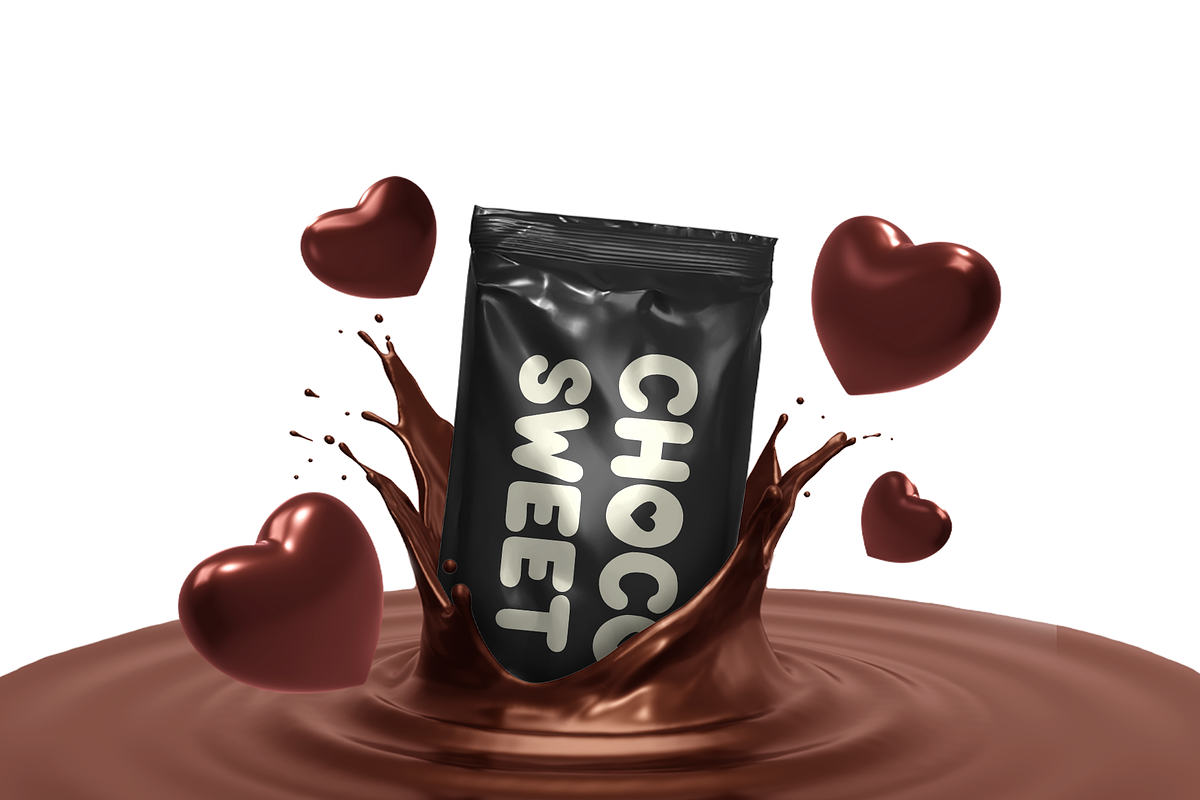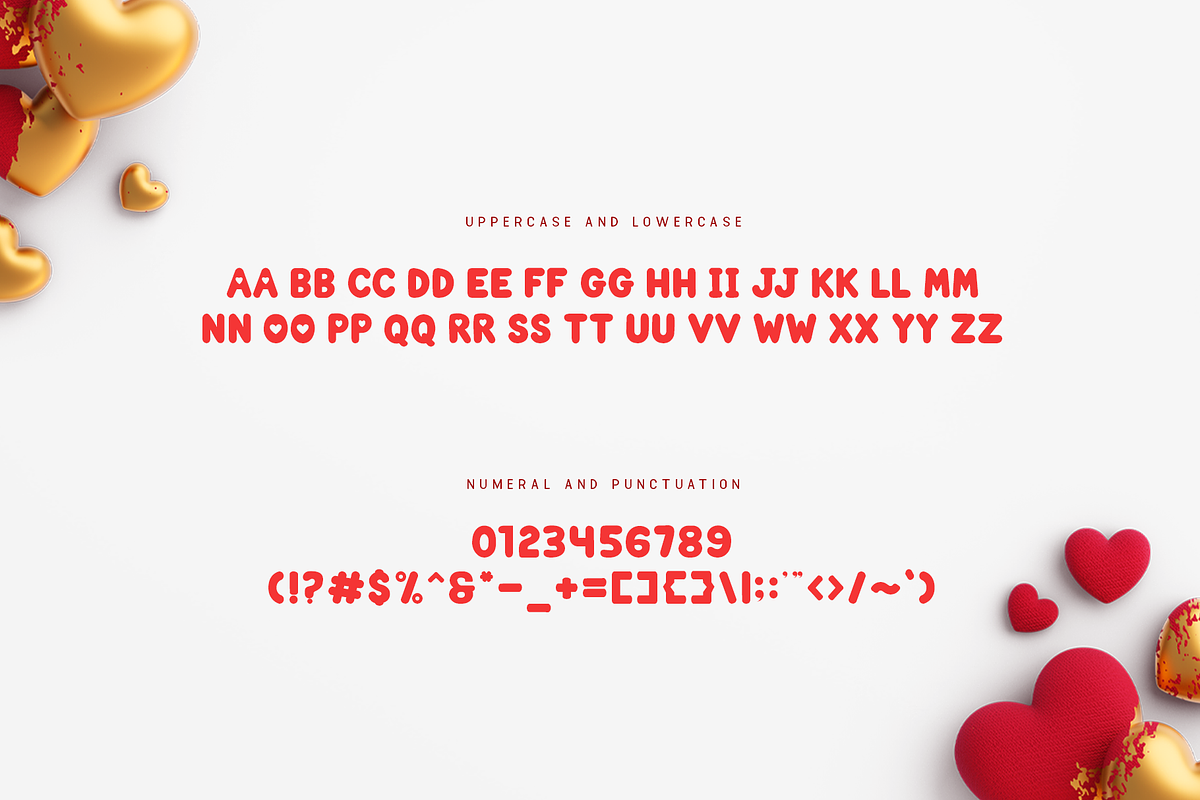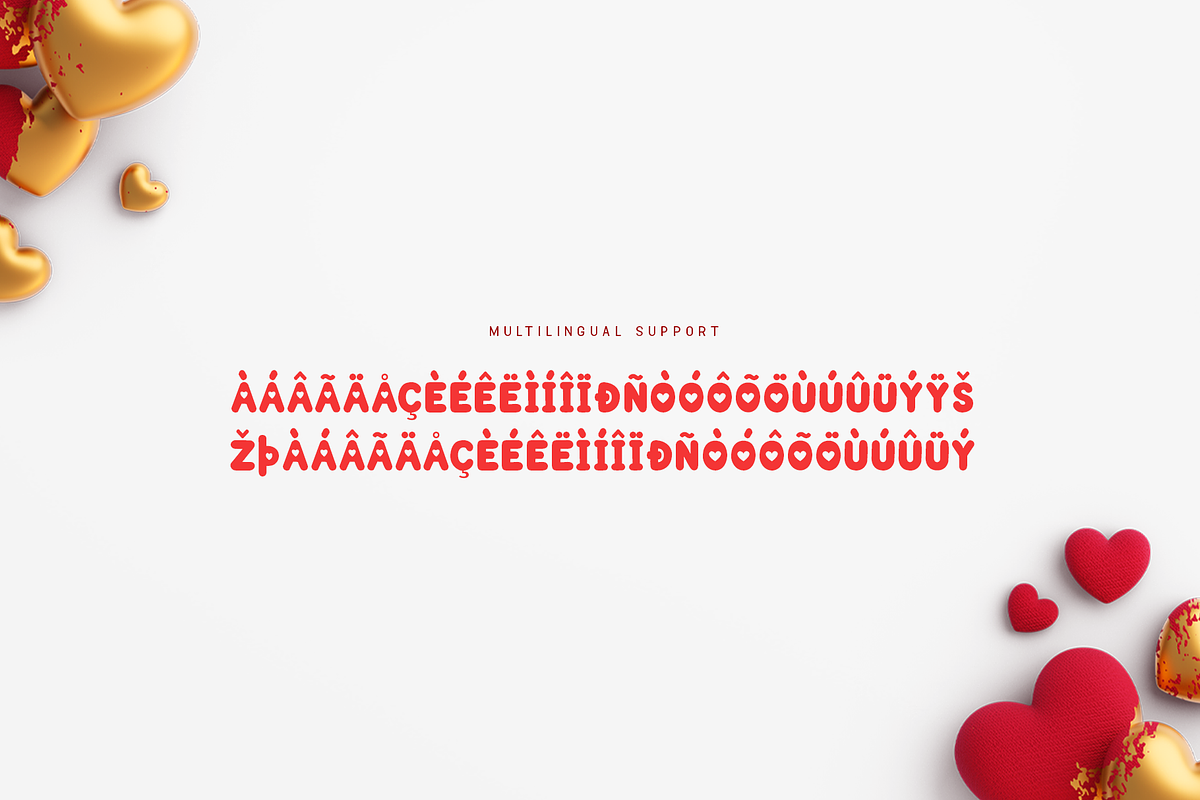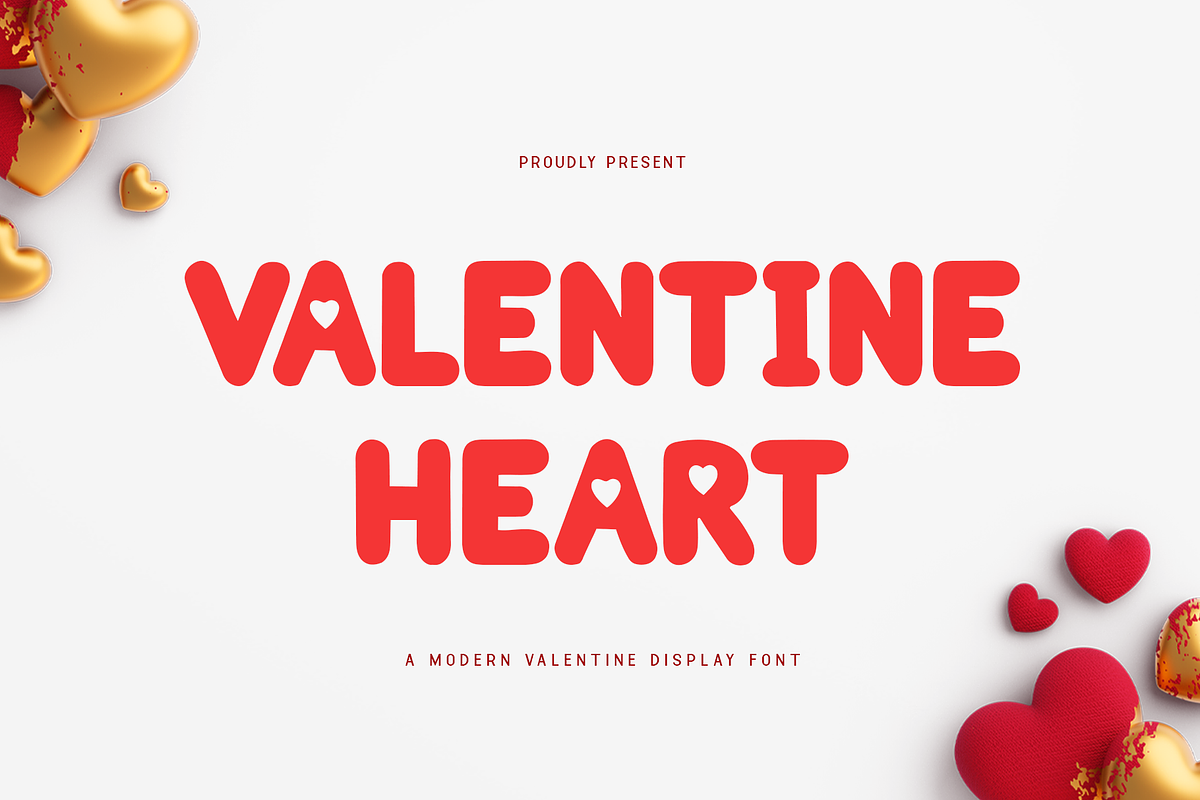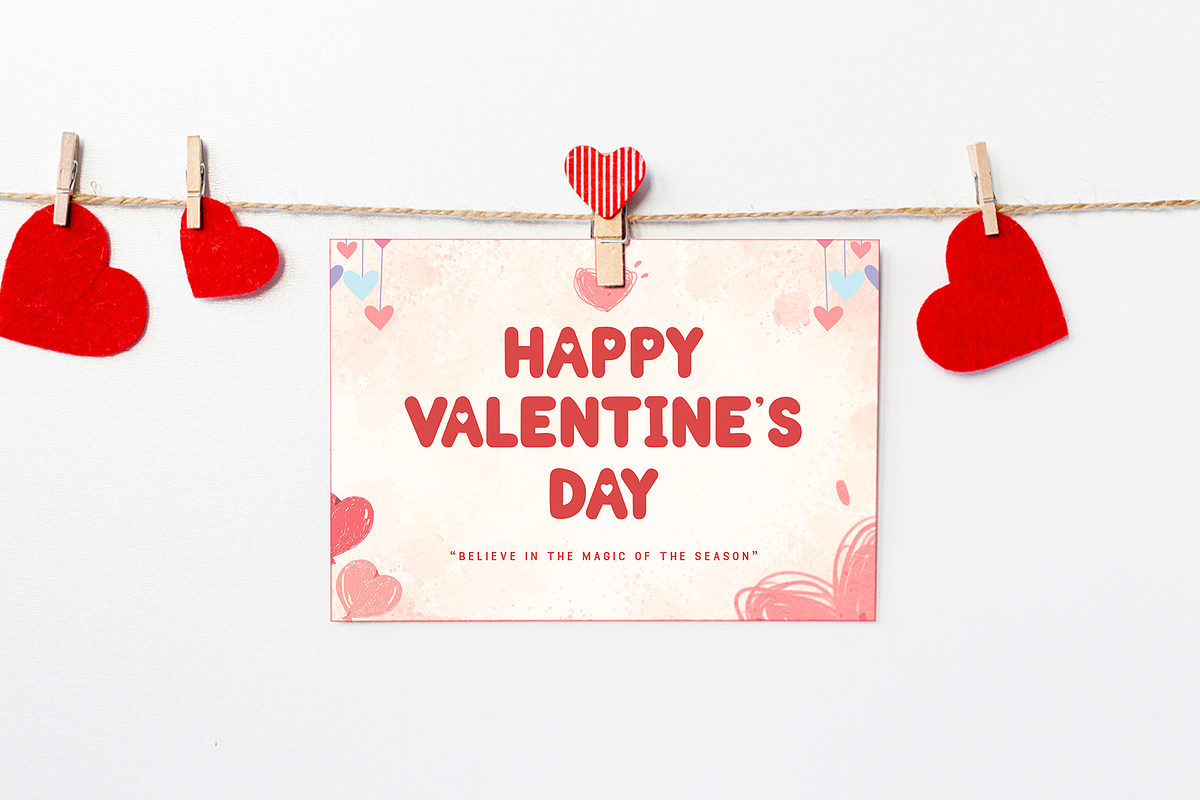
Valentine Heart - Modern Valentine
Valentine Heart - A Modern Valentine Display Font
Celebrate the season of love with Valentine Heart, a modern display font designed to capture the warmth and charm of Valentine’s Day. Featuring playful curves and heart-shaped accents, this typeface adds a romantic touch to any project.
Perfect for crafting love notes, wedding invitations, greeting cards, and Valentine-themed branding, Valentine Heart delivers a fun and heartfelt design that’s sure to leave an impression. Its versatility ensures that your designs radiate love and creativity.
With a complete character set, multilingual support, and charming details, Valentine Heart is your go-to font for celebrating love in style.